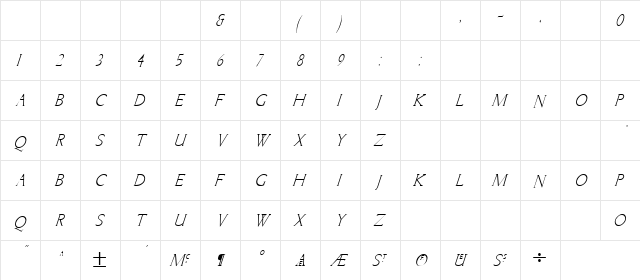
Somnolent Italic Regular
Design Context for Somnolent Italic Typeface
Somnolent Italic offers clean, dependable letterforms without strong stylistic allegiance, making it a practical choice for designers who need flexibility. The slanted form adds forward momentum and visual energy.
Pro Tip: Try Somnolent Italic for annotation and caption copy alongside an upright companion — the contrast in angle creates a dynamic but ordered typographic system.